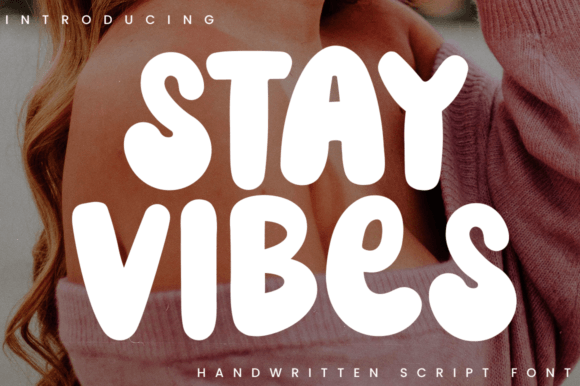
Stay Vibes is a bubbly handwritten display font.. and a little bit groovy too! This font is perfect for creating retro shirt designs, stickers, phone cases, Instagram quotes, Cricut projects, logos, and more!
Stay Vibes Font